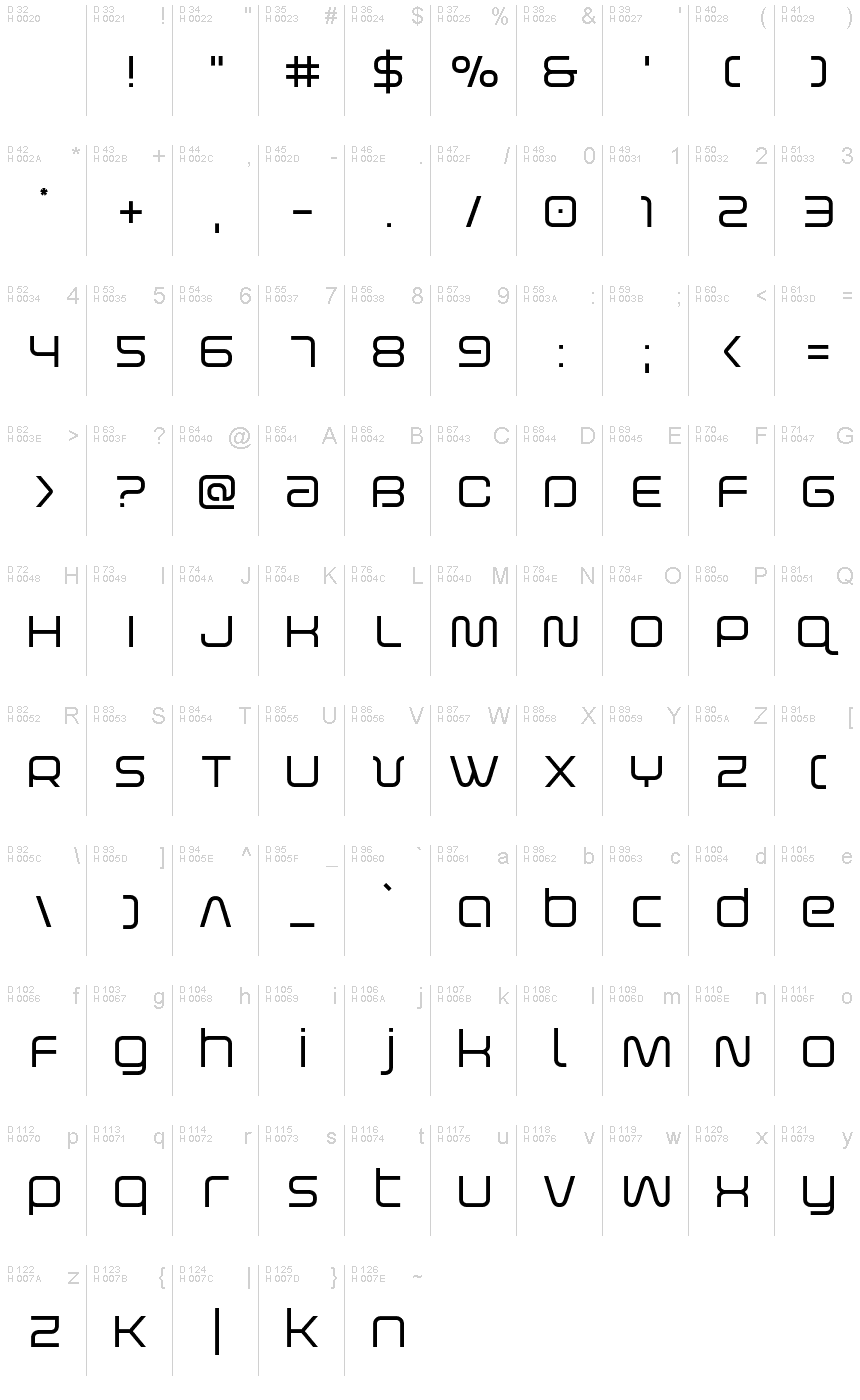
Fox on the Go, designed by Iconian Fonts, is a display font with a distinctive futuristic style that instantly captures attention. With its semi-light weight and expanded width, this typeface boasts an airy yet assertive character that stands out in any digital landscape.
The sleek lines and bold geometric shapes of Fox on the Go give it a modern edge that's perfect for forward-thinking brands and cutting-edge creative projects. Its characters exhibit a unique balance, offering legibility while making a strong visual statement.
Whether you're crafting titles for sci-fi films, designing an innovative tech startup's logo, or setting the scene in an interactive game interface, Fox on the Go is tailored to imbue your project with an aura of sophistication and dynamism. Embrace this font's ability to elevate your work with its undeniably contemporary flair.
Fox on the Go